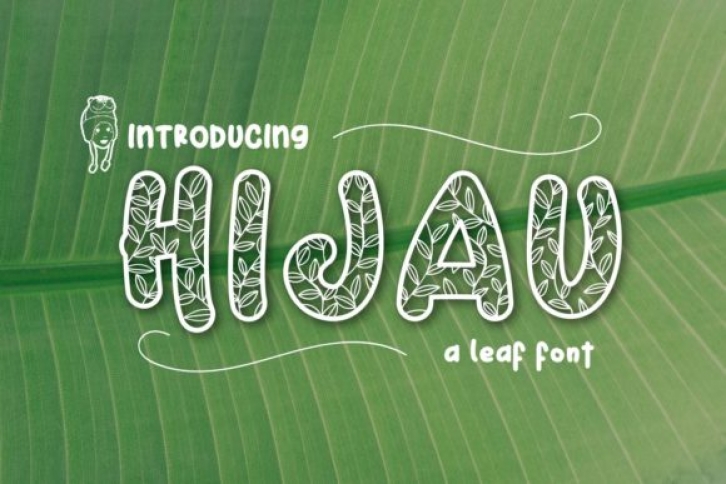
Hijau is a unique and chunky lettered decorative font, featuring leaf ornaments. Fall in love with its incredibly versatile style and use it to create spectacular designs!